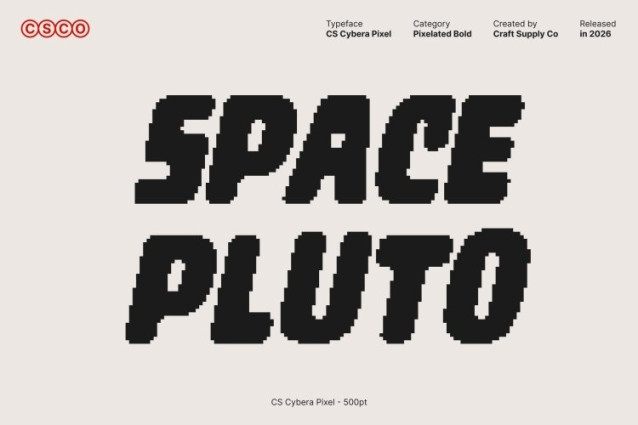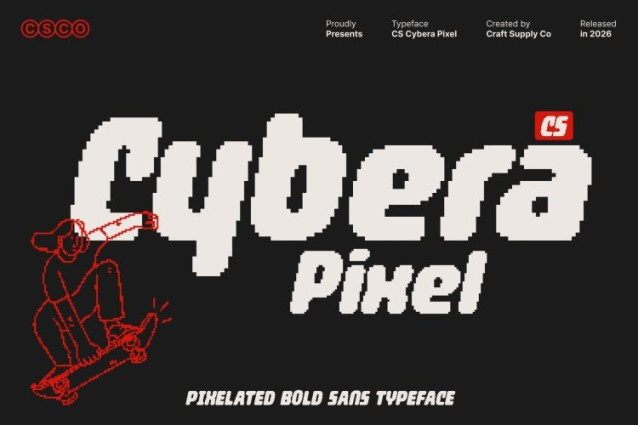
CS Cybera Pixel Font
CS Cybera Pixel Font This is a bold display sans serif font built to make an impact. Featuring strong letterforms structured on a refined pixel grid, it delivers clarity, confidence, and modern authority. Its commanding presence makes it ideal for headlines, branding, and posters that need to stand out instantly in digital and print environments.
Rounded Pixel Shapes for a Fresh, Friendly Look
Soft rounded contours balance the font’s bold weight, creating a look that feels modern, approachable, and visually engaging. The pixel-based construction adds a subtle digital rhythm, blending strength with warmth. This makes this font perfect for designs that aim to feel innovative yet inviting.
Contemporary Energy with Versatile Digital Appeal
Built on clean geometry and smooth proportions, this font adapts seamlessly across media. Its contemporary character shines in tech branding, fashion campaigns, lifestyle visuals, social media graphics, and digital interfaces bringing a sleek, forward-looking tone to every layout.
Perfect for Impactful Branding and Modern Design Systems
More than just a display font, this font is a statement of modern creativity and confidence. Whether used for logos, large headlines, promotional materials, or digital campaigns, it ensures your message feels bold, clear, and unmistakably current.